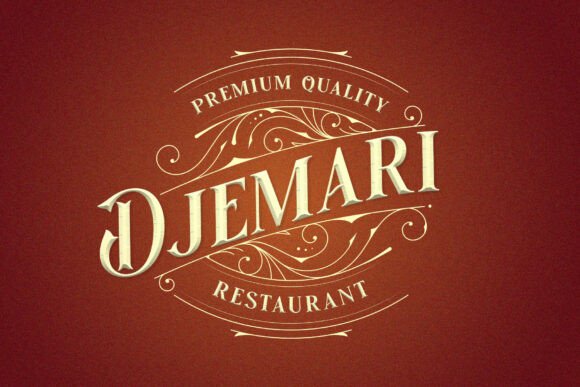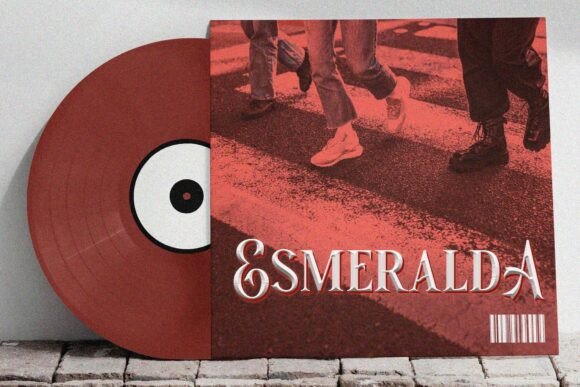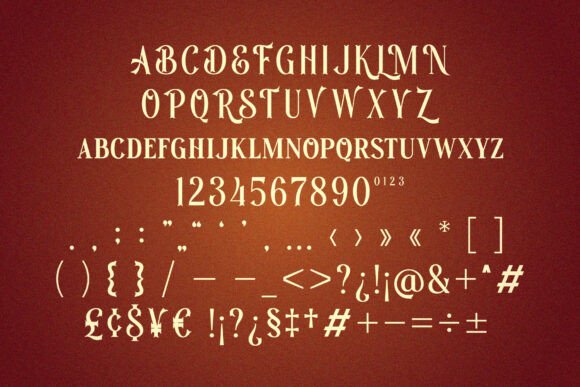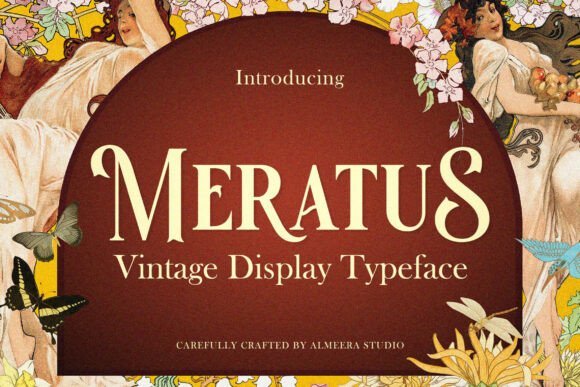
Introduction to Meratus Font
Meratus is a vintage display serif font.
This type of font is very suitable for your various needs such as branding projects, logos, social media posts, advertisements, labels, product packaging, photography, wedding designs, watermarks, invitation product designs, stationery, and any project .